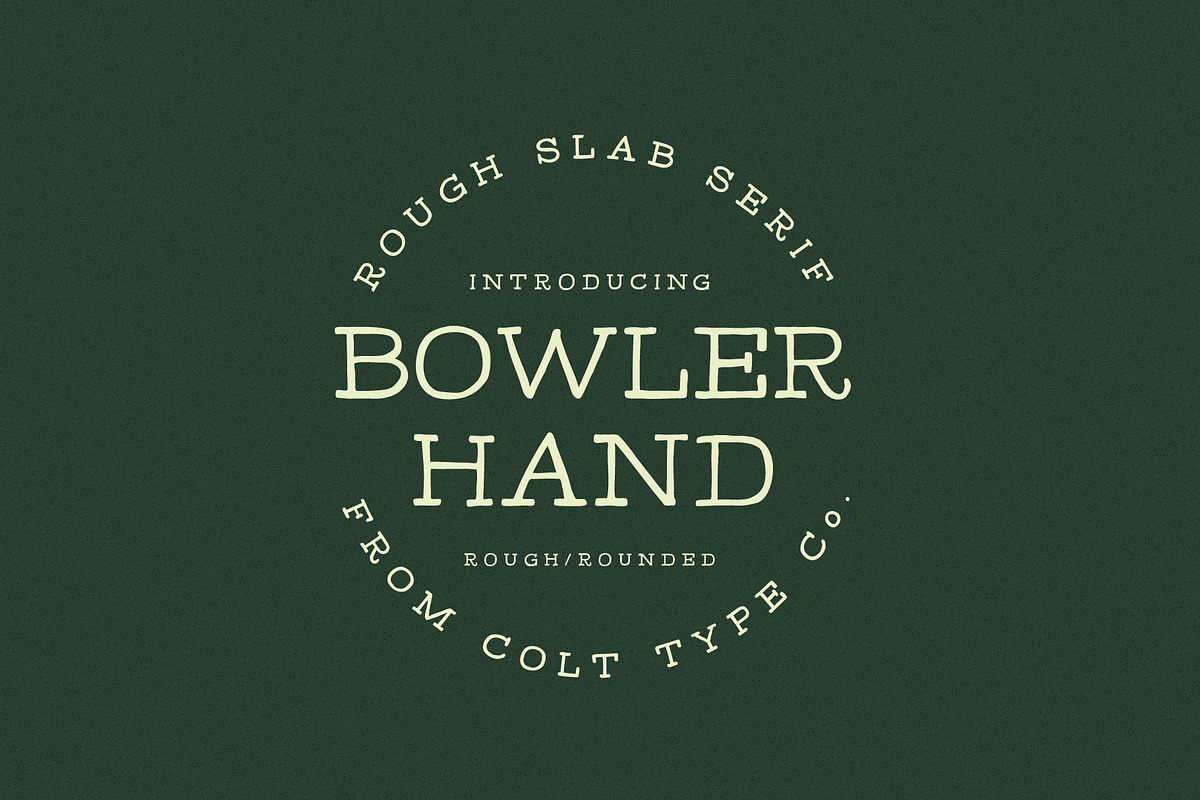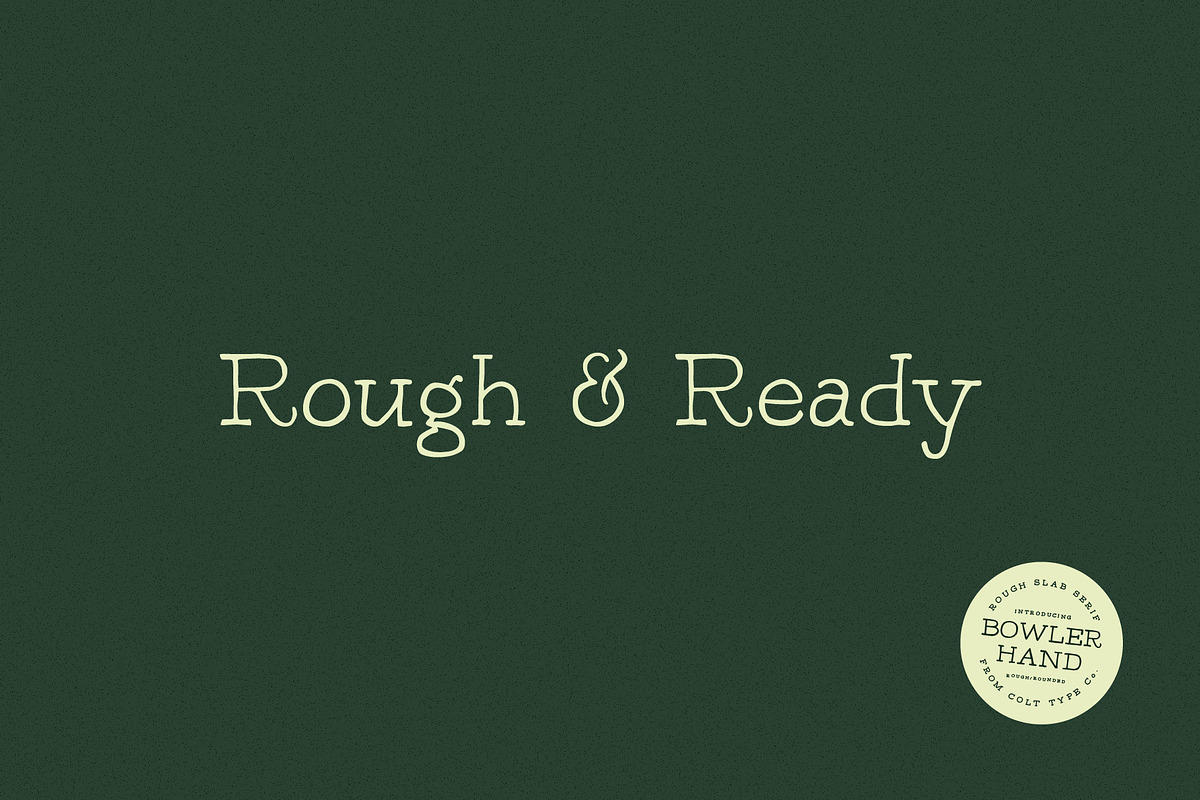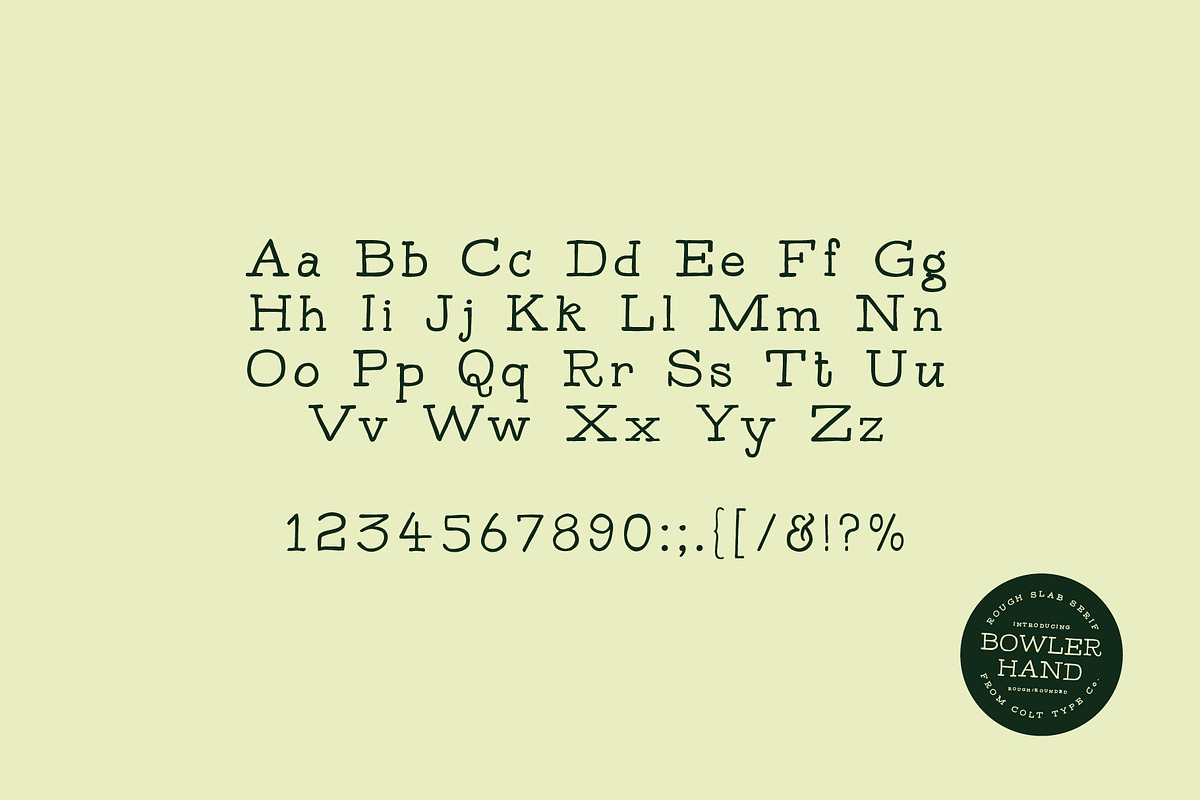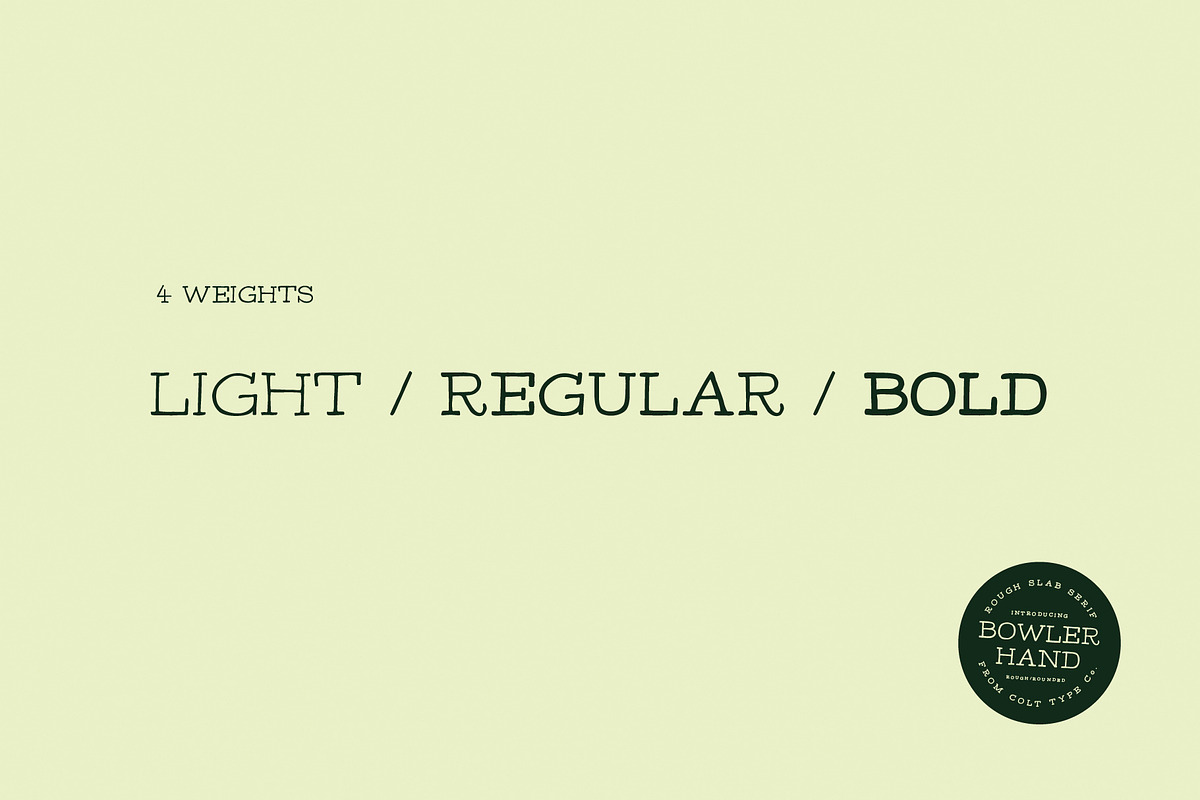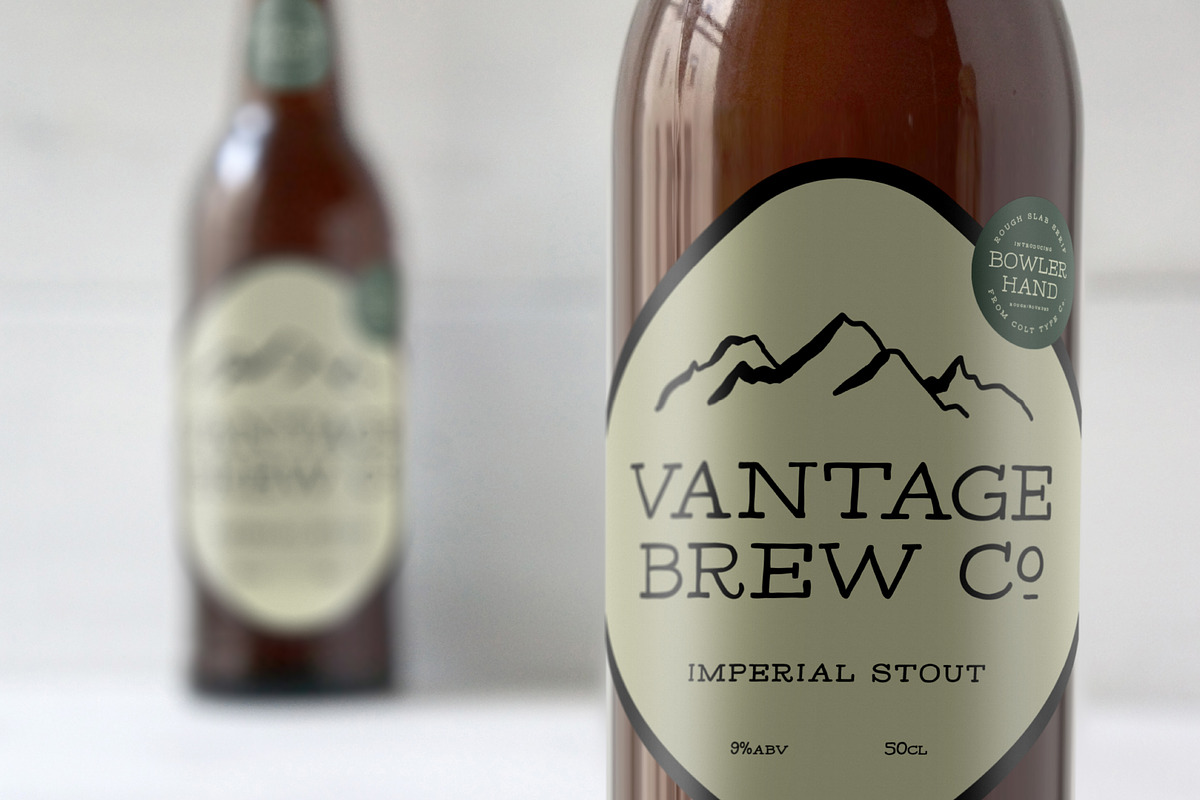
Bowler Hand Display Font
Introducing Bowler Hand by We are colt
Bowler Hand is a hand-drawn rounded slab display font. Each character is hand-drawn using a Rotring ink pen which gives the font a great, natural look.
The pen and ink give the lines a wobbly, kind of grunge feel, making it look aged. This font works really well as a decorative and display font.
With its friendly but rough hand-lettered look Bowler Hand is ideal for packaging, invitations, cards, logos and anywhere you want a hand-made feel.
Bowler Hand pairs well with Futura and Gill Sans.
Three weights; thin, regular and bold
- Three weights; thin, regular and bold
- Upper and lowercase